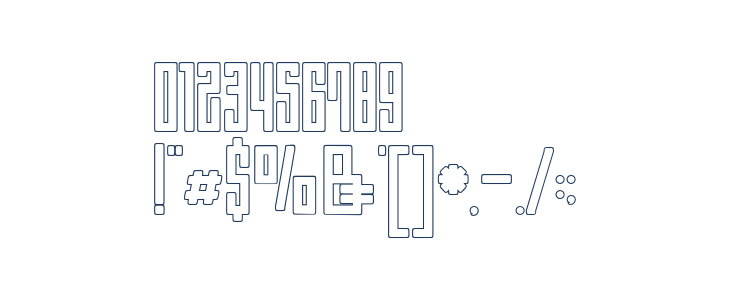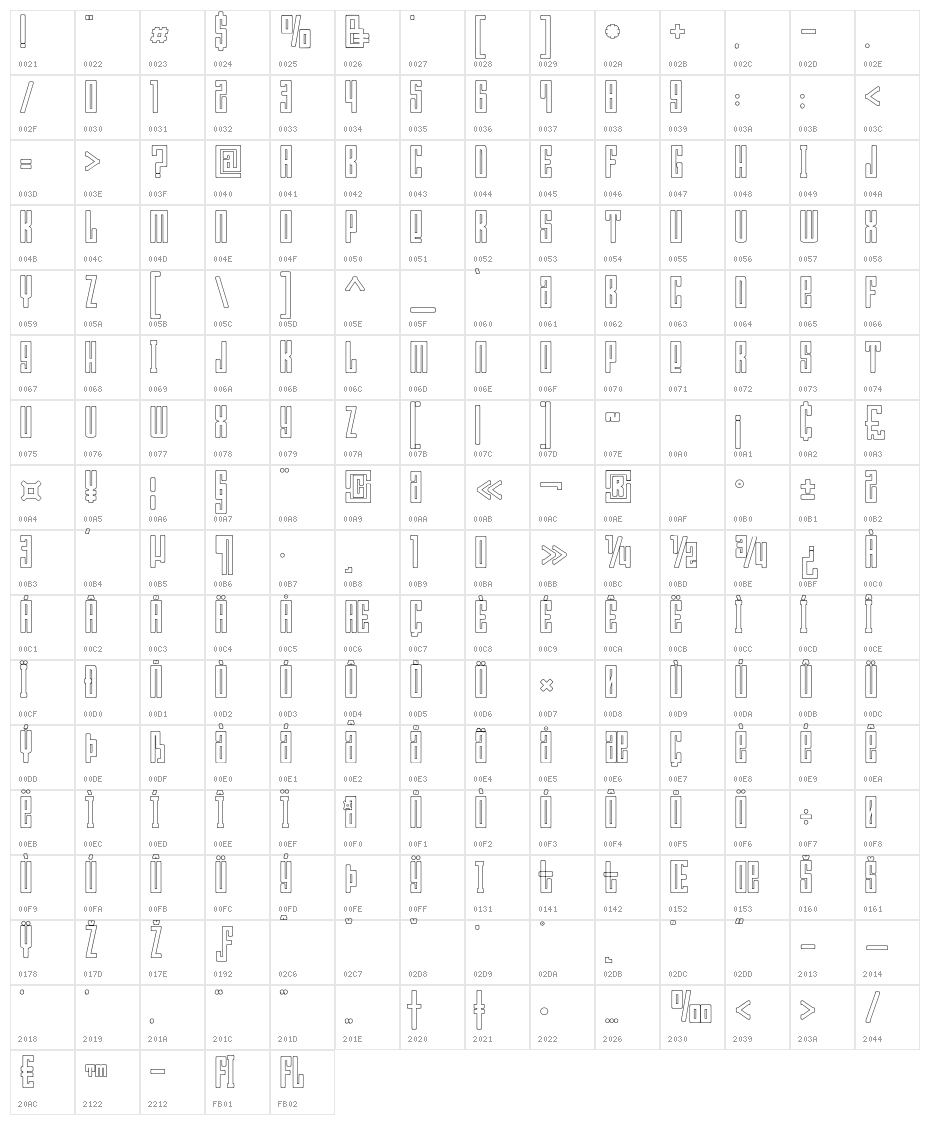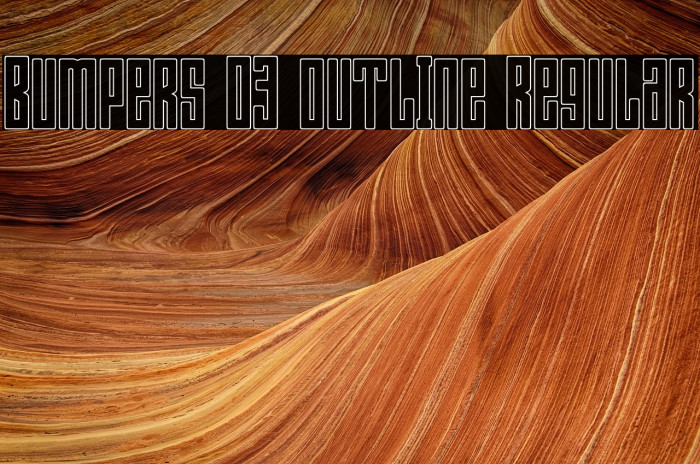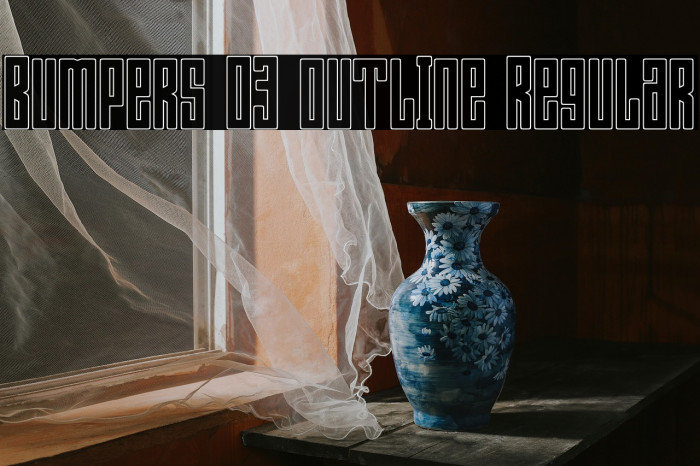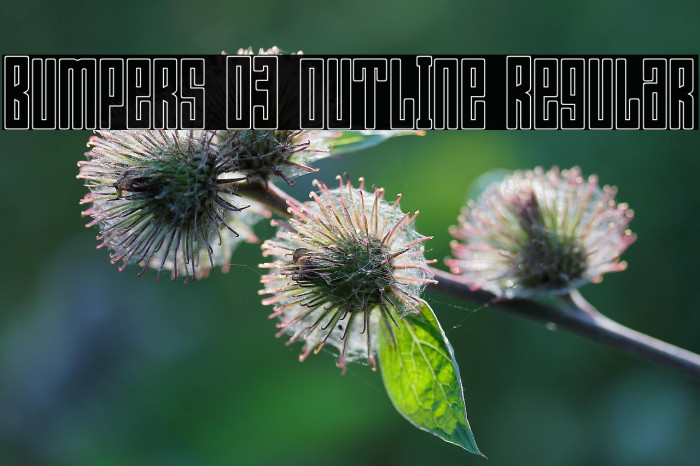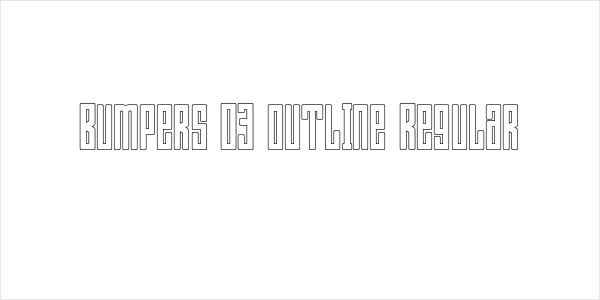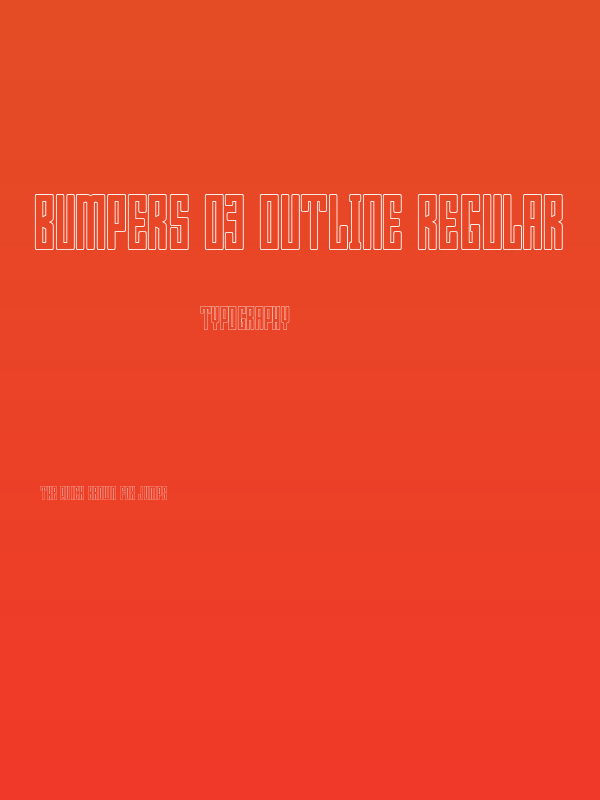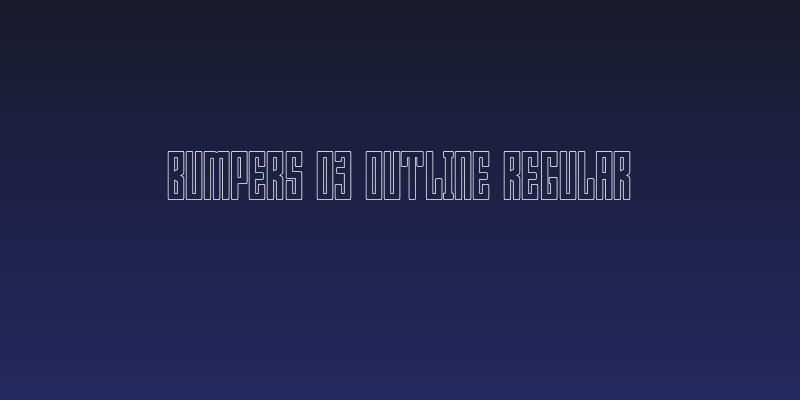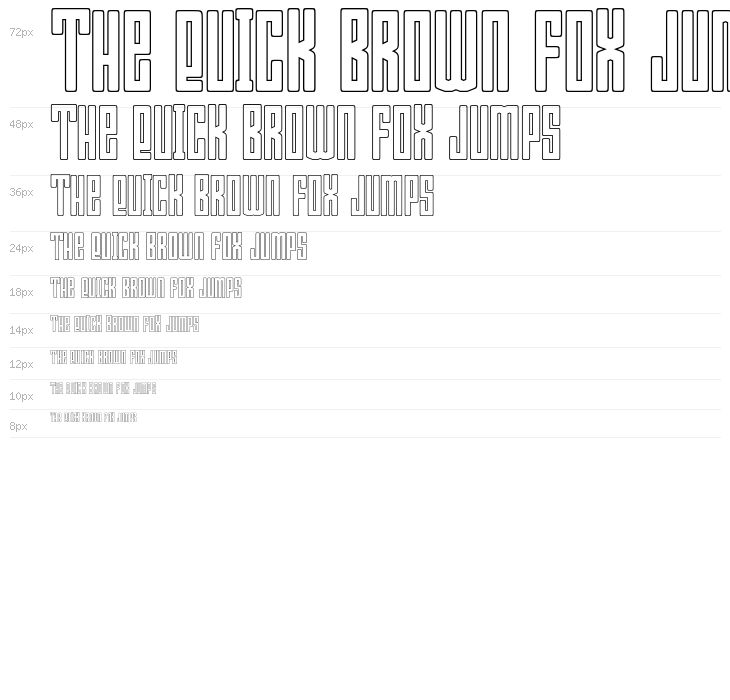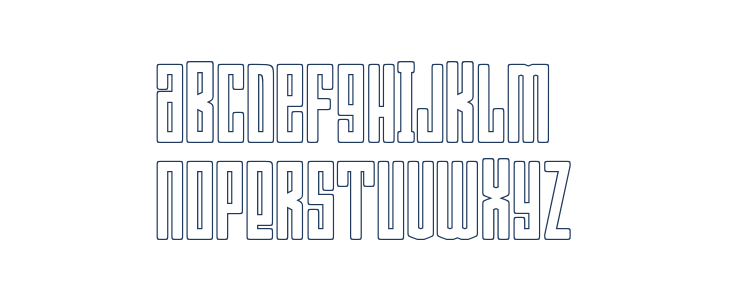
Bumpers 03 outline Regular Font
Bumpers 03 outline Regular Description
This font features a bold, geometric outline style with a modern and structured appearance. The characters are uniformly tall and narrow, creating a condensed look that emphasizes verticality. The outline design adds a unique dimension, making it suitable for eye-catching displays. The uppercase and lowercase letters maintain consistent proportions, while the numerals and special characters align seamlessly with the overall aesthetic. The font's clean lines and sharp angles contribute to a futuristic and industrial feel, making it ideal for projects that require a strong visual impact.
| Proposed Projects | Ideal for posters, logos, branding, and any design needing a modern, impactful look. |